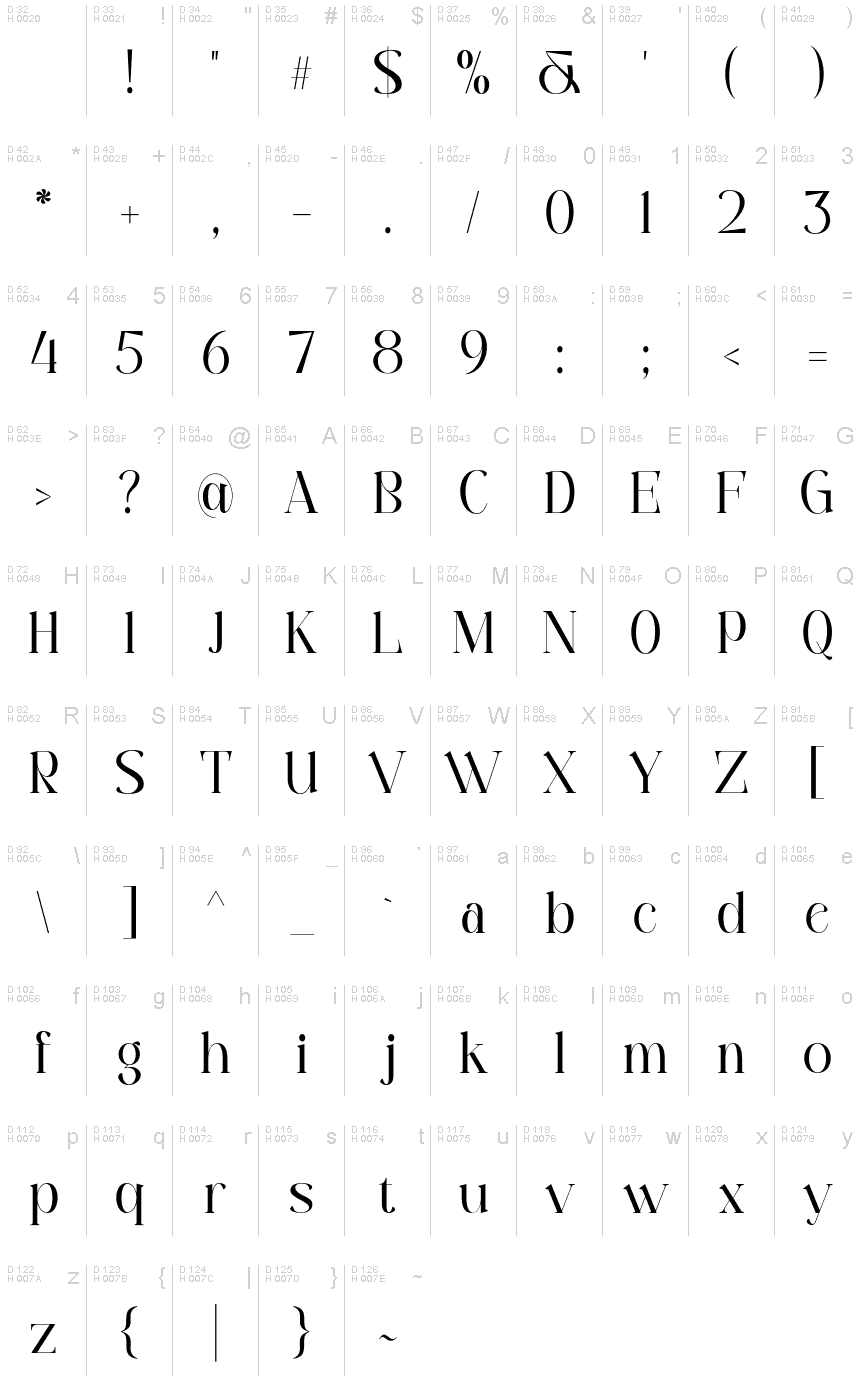
PermolaDisplay
Permola Display, a creation by Tebaltipis Studio, is a captivating display font that effortlessly blends retro charm with modern aesthetics. With its semi-light weight and semi-condensed width, this typeface exudes a sense of elegance and sophistication.
The vintage-inspired serifs add a touch of nostalgia, making it perfect for projects that seek to evoke a classic yet contemporary feel. From branding and packaging designs to editorial layouts and signage, Permola Display is an ideal choice for those who crave an eye-catching font that stands out from the crowd.